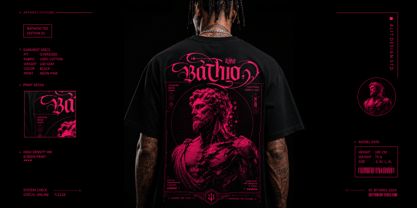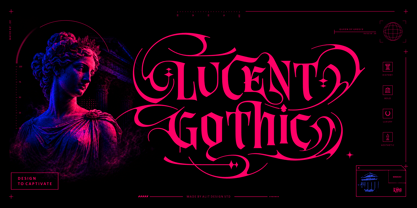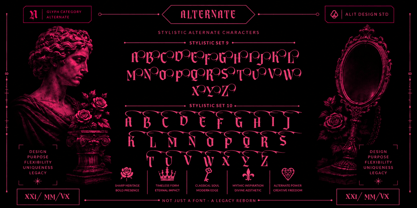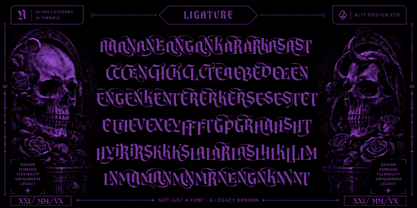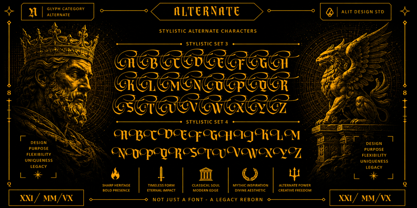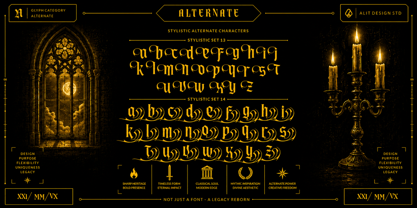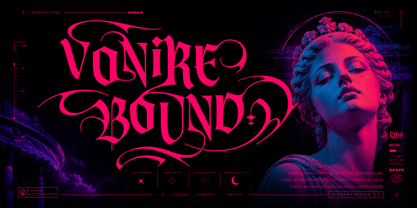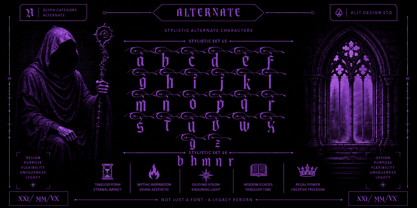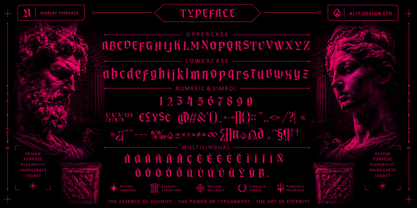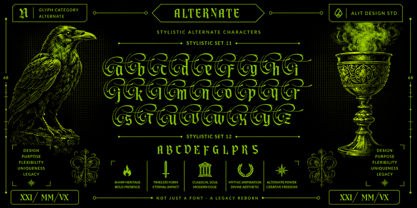
Vonire Bound
Vonire Bound: A Mythic Fusion of Gothic Power and Cyber-Aesthetic
Unleash a legendary presence in your designs with Vonire Bound, a high-impact display typeface that seamlessly bridges the gap between classical Greek mythology and futuristic cyberpunk energy.
Vonire Bound is not just a font; it is a visual statement. Built with sharp, aggressive gothic structures and infused with fluid, modern curves, this typeface captures the "Cyber Mythology" aesthetic. Whether you are designing for high-end streetwear, cinematic posters, gaming interfaces, or luxury branding, Vonire Bound provides a "Legacy Reborn" that commands immediate attention.
The Power of Versatility
This collection is meticulously crafted with an extensive array of features to give designers ultimate creative freedom:
• Vast Character Set: Includes full Uppercase, Lowercase, Numerals, and comprehensive Punctuation.
• Multilingual Support: Ready for global reach with a wide range of accented characters.
• Hyper-Customization: Over 100+ Unique Ligatures and multiple Stylistic Sets (including dramatic swashes and alternate glyphs) allow you to create custom-looking typography with just a few clicks.
• Design Variations: From "Sharp Heritage" to "Divine Aesthetic," the alternates range from clean, modern gothic to ornate, mythical flourishes.
Ideal For:
• Branding & Logos: Create an unforgettable identity with a "Mythic Force."
• Editorial & Posters: Perfect for large-scale displays that require a "Powerful Presence."
• Apparel Design: Ideal for streetwear brands looking for that dark, neon-noir vibe.
• Digital Media: Elevate game titles, YouTube thumbnails, and social media headers.
Technical Features:
• OpenType Features: Ligatures, Alternates, Stylistic Sets
• Theme: Cyberpunk, Gothic, Blackletter, Mythology, Luxury
Designer: Alit Suarnegara
Foundry: Alit Design